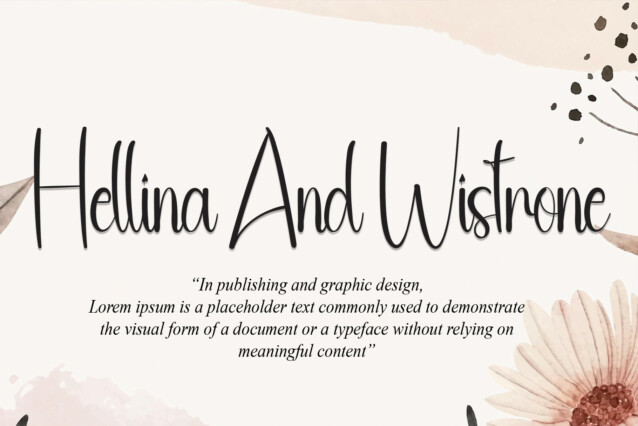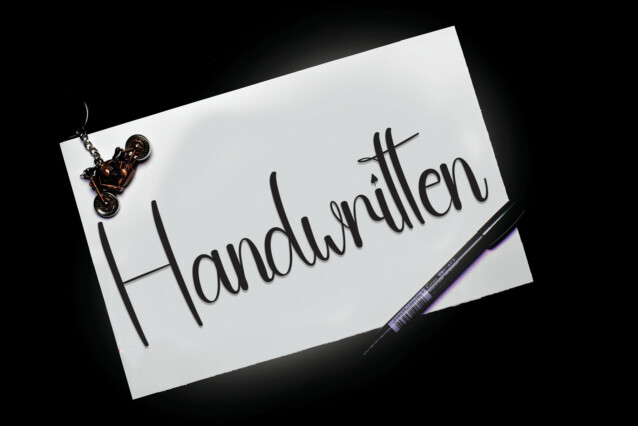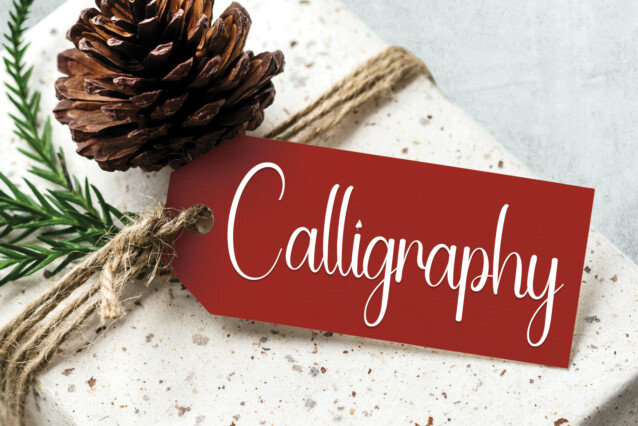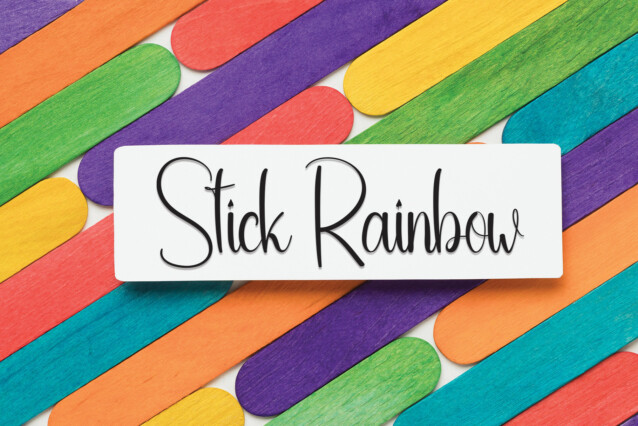
Simple House Script Typeface
Simple House Script Typeface – The latest style letters are perfect for wall displays, wedding invitations, social media post logos, advertisements, product packaging, product designs, labels, photography, watermarks, invitations, stationery, and any project that requires a taste for handwriting.